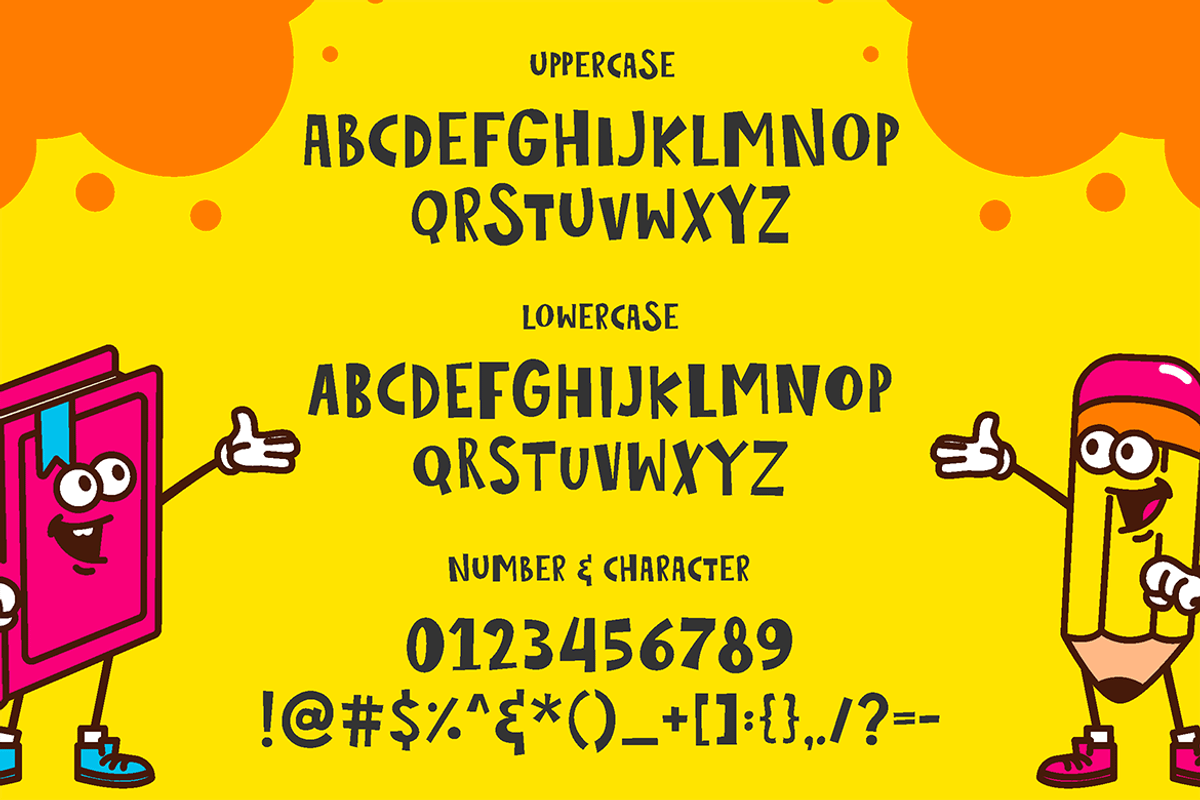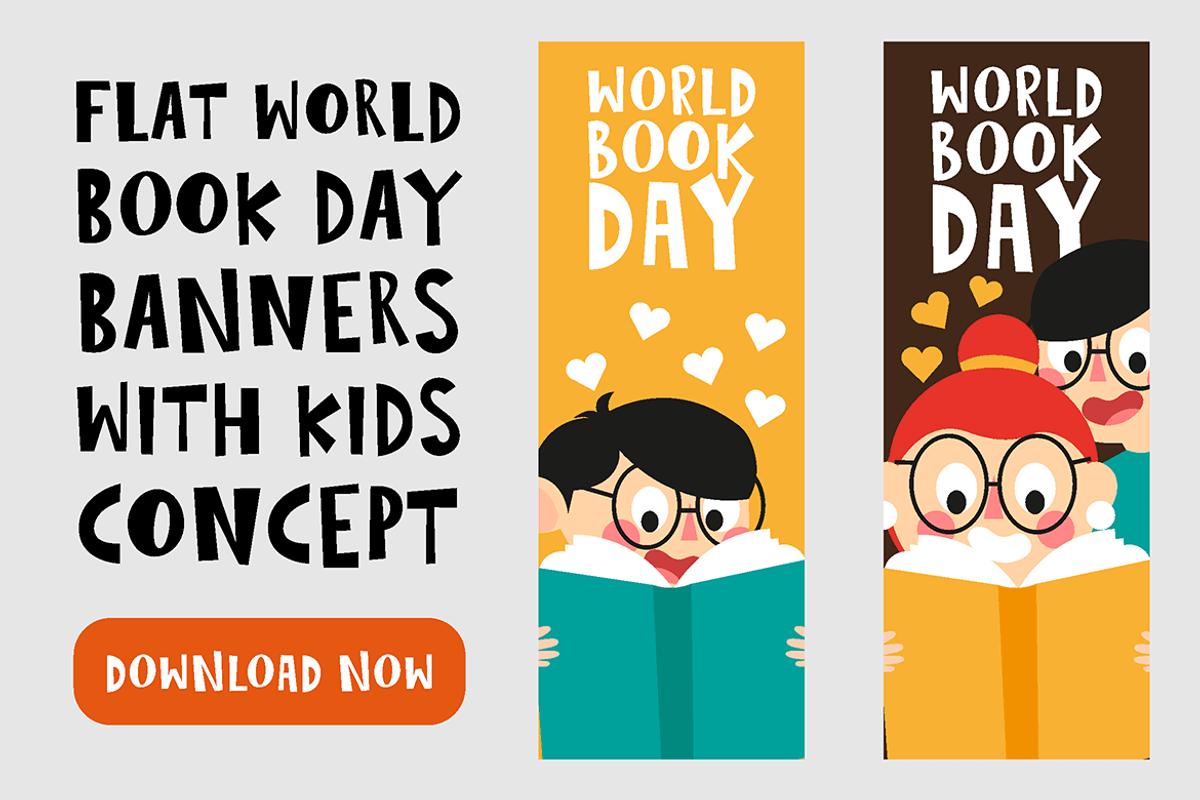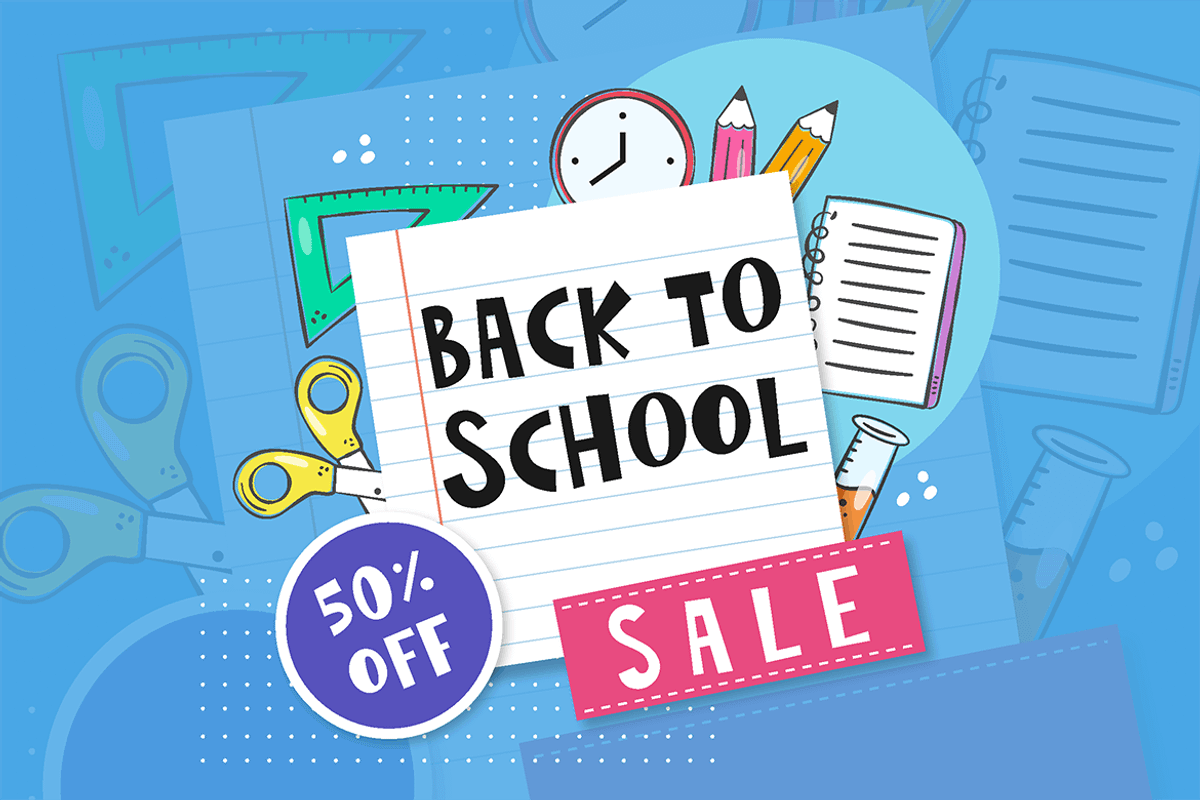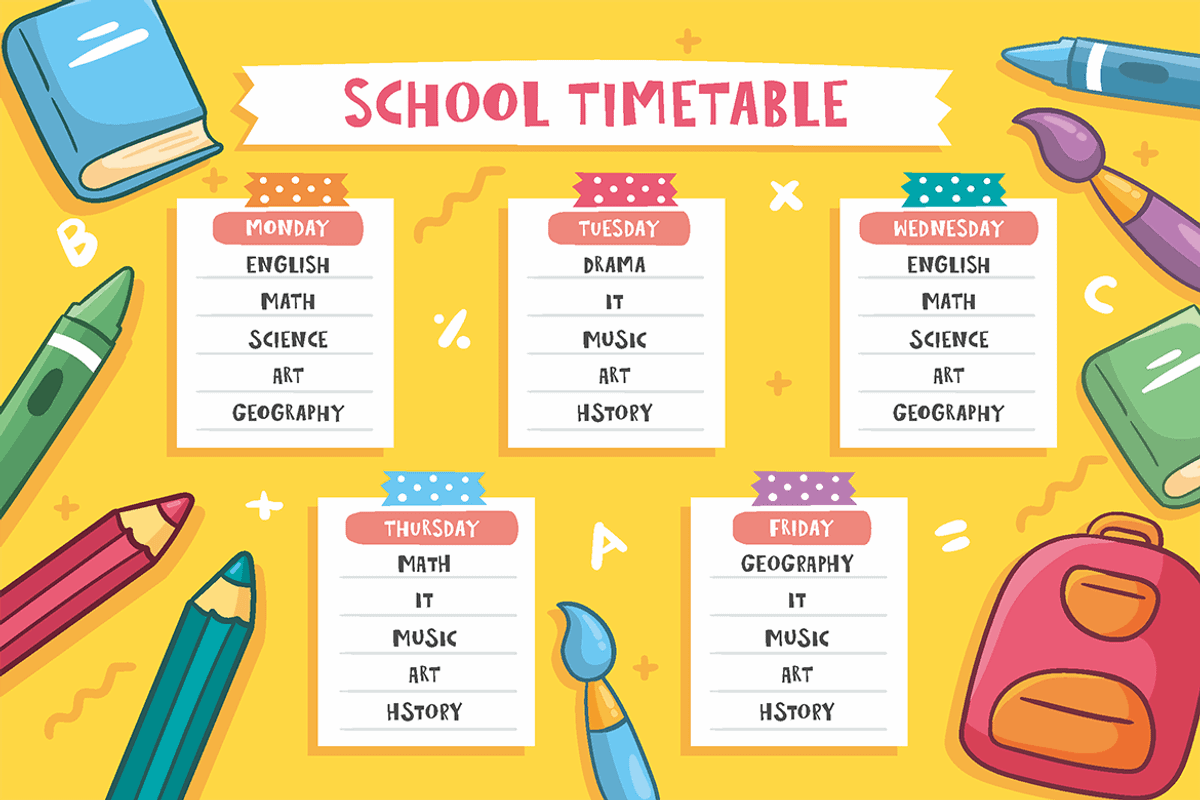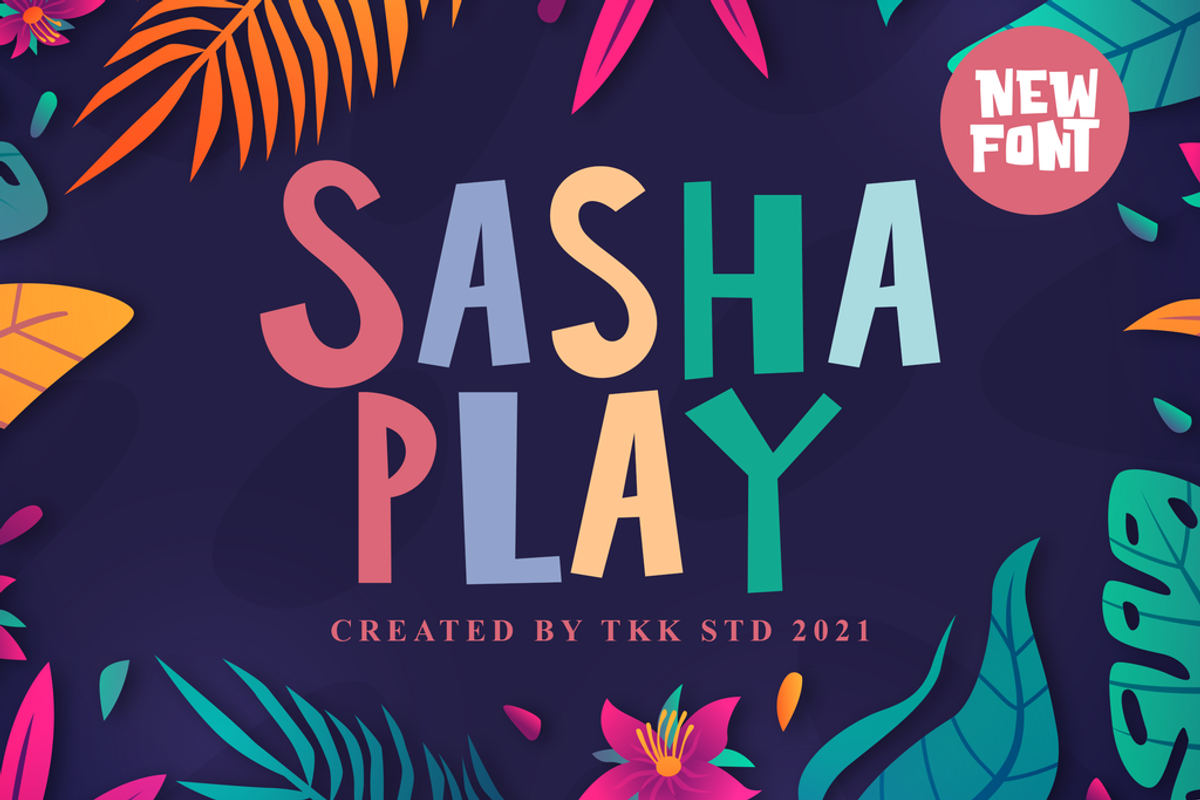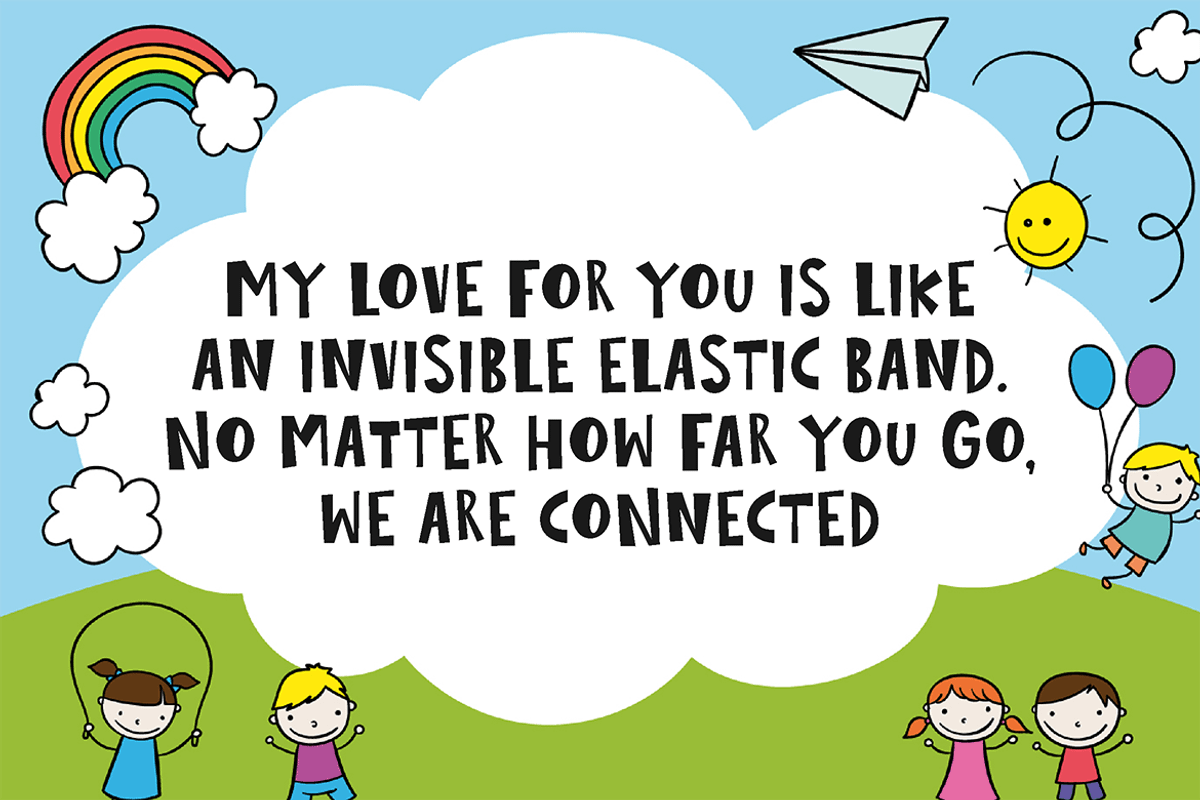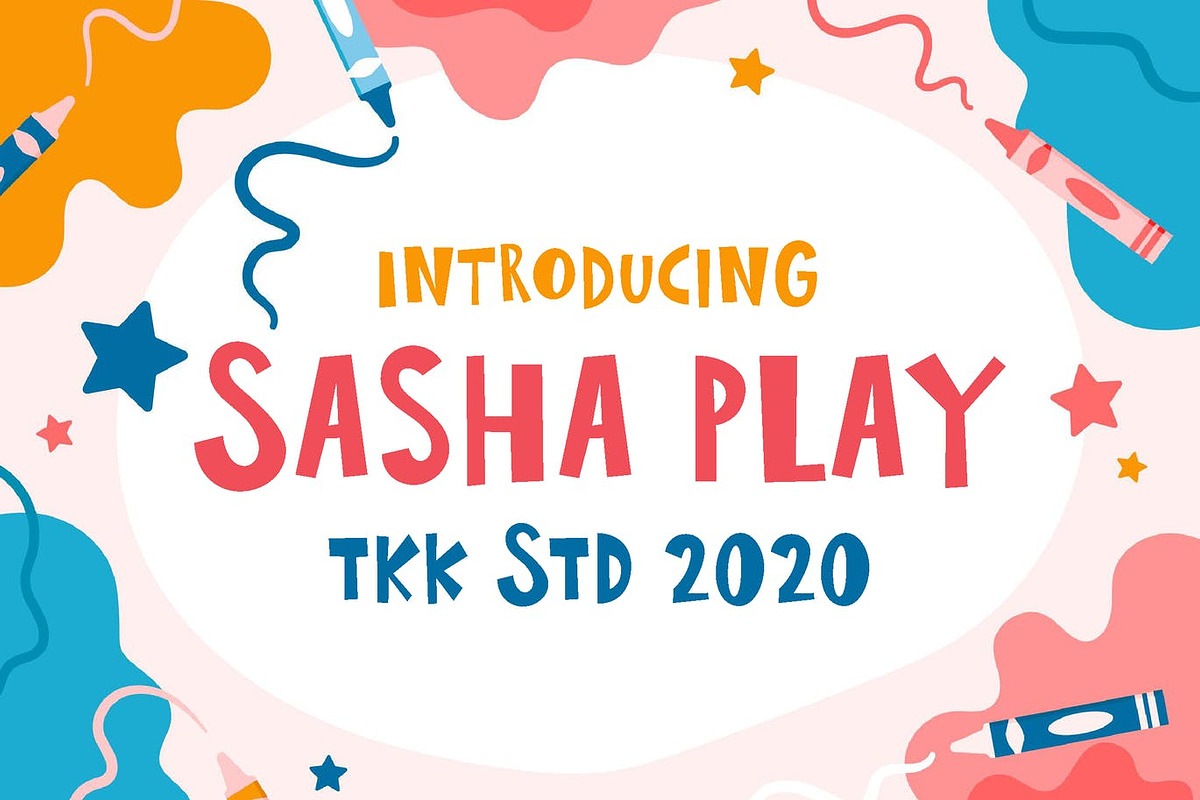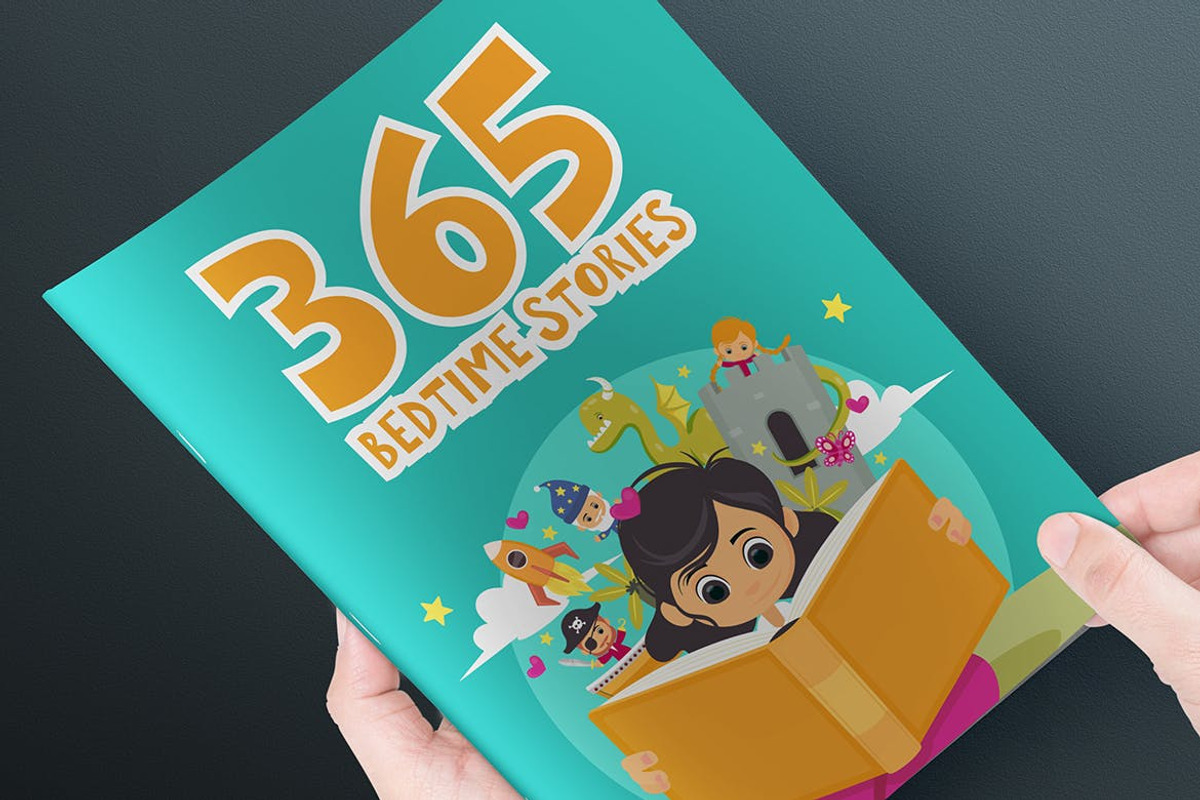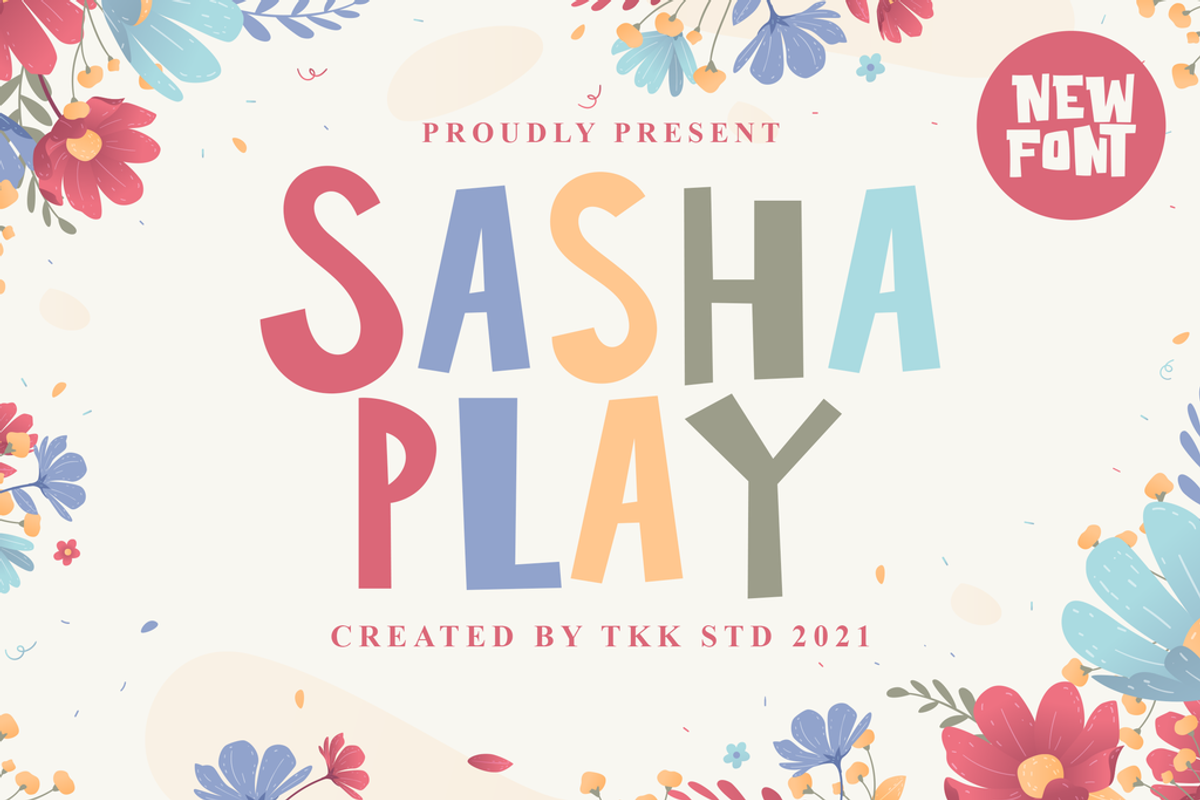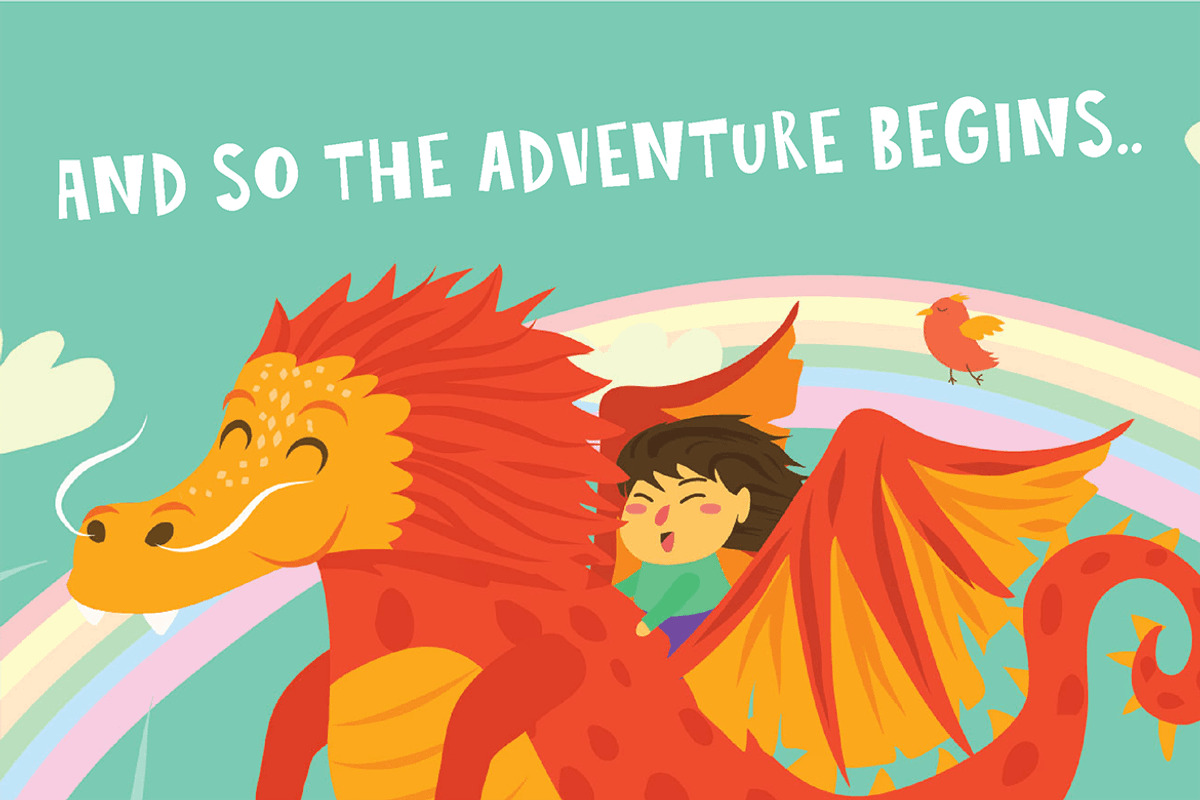
Sasha Play - Cute Font
Sasha Play cute font having a bouncy baseline with quirky, and strong sharp corner will make Sasha Play emphasize every word you put on the screen.
Suit perfectly for Children related project, poster, movie title, fast food menu, magazine, youtube covers, youtube thumbnails, social media page covers and so on…